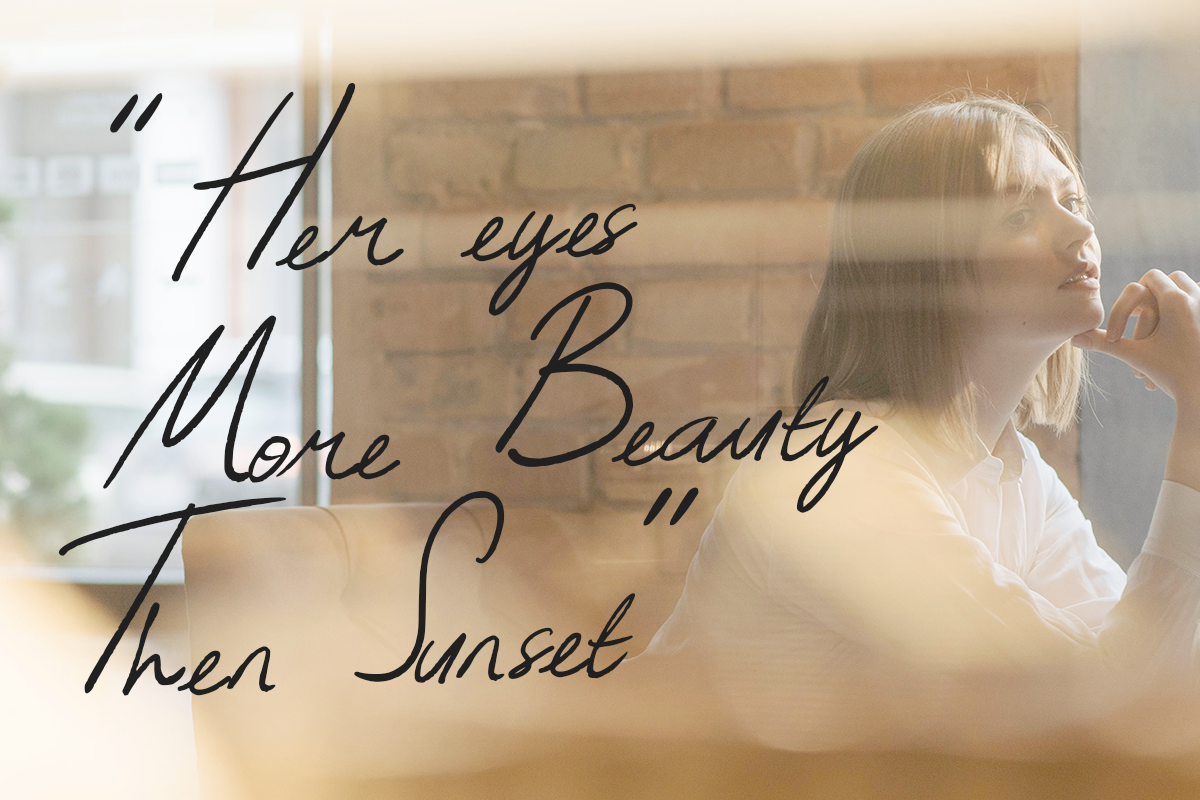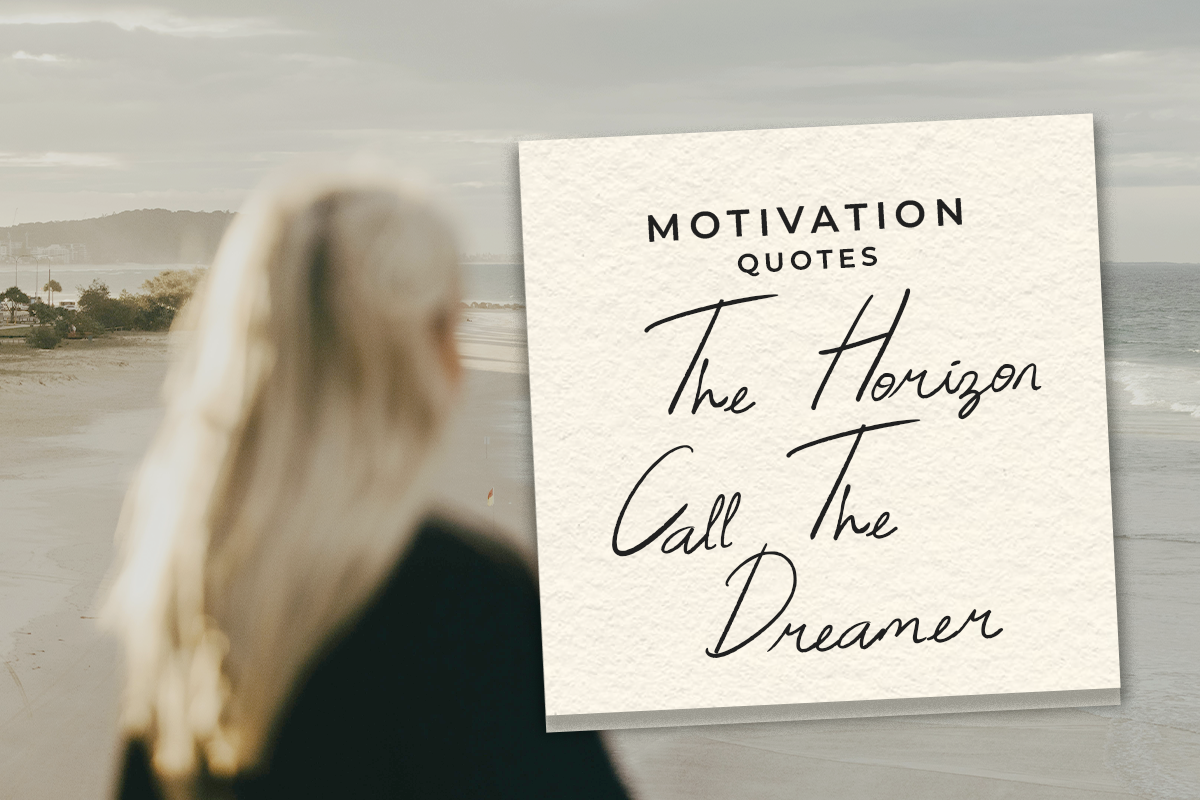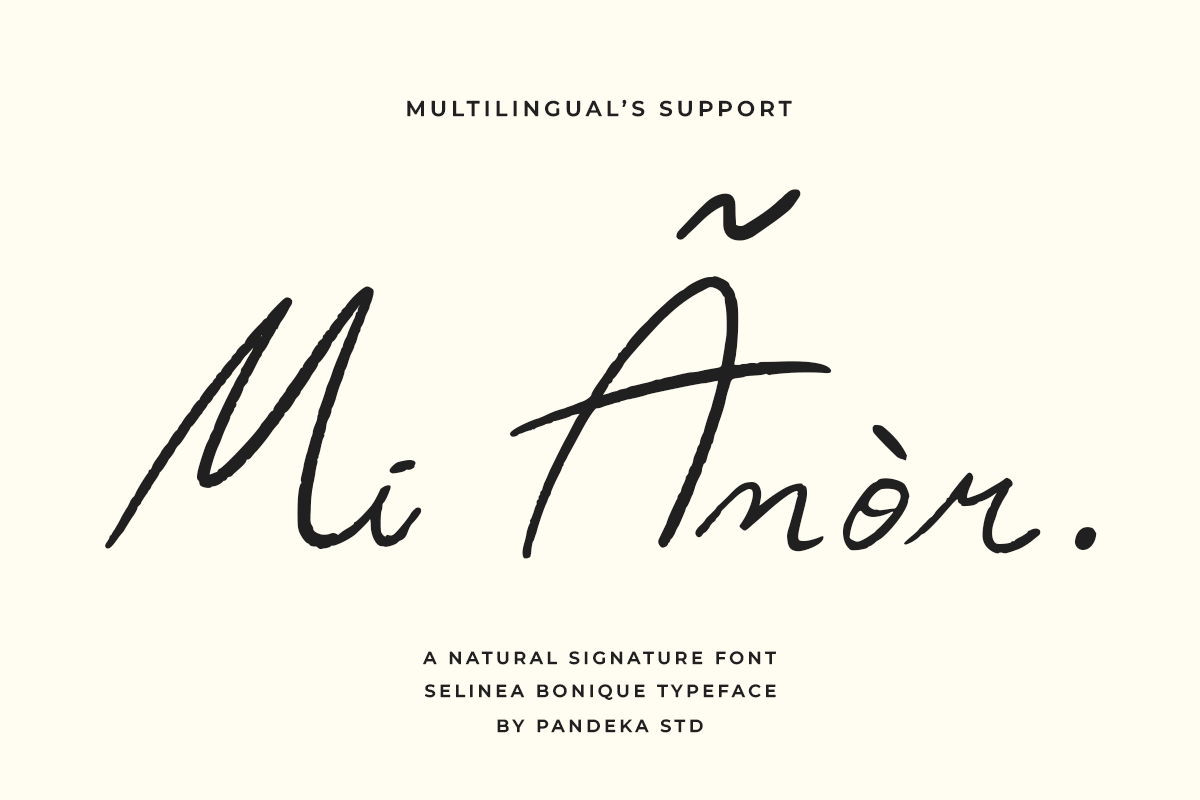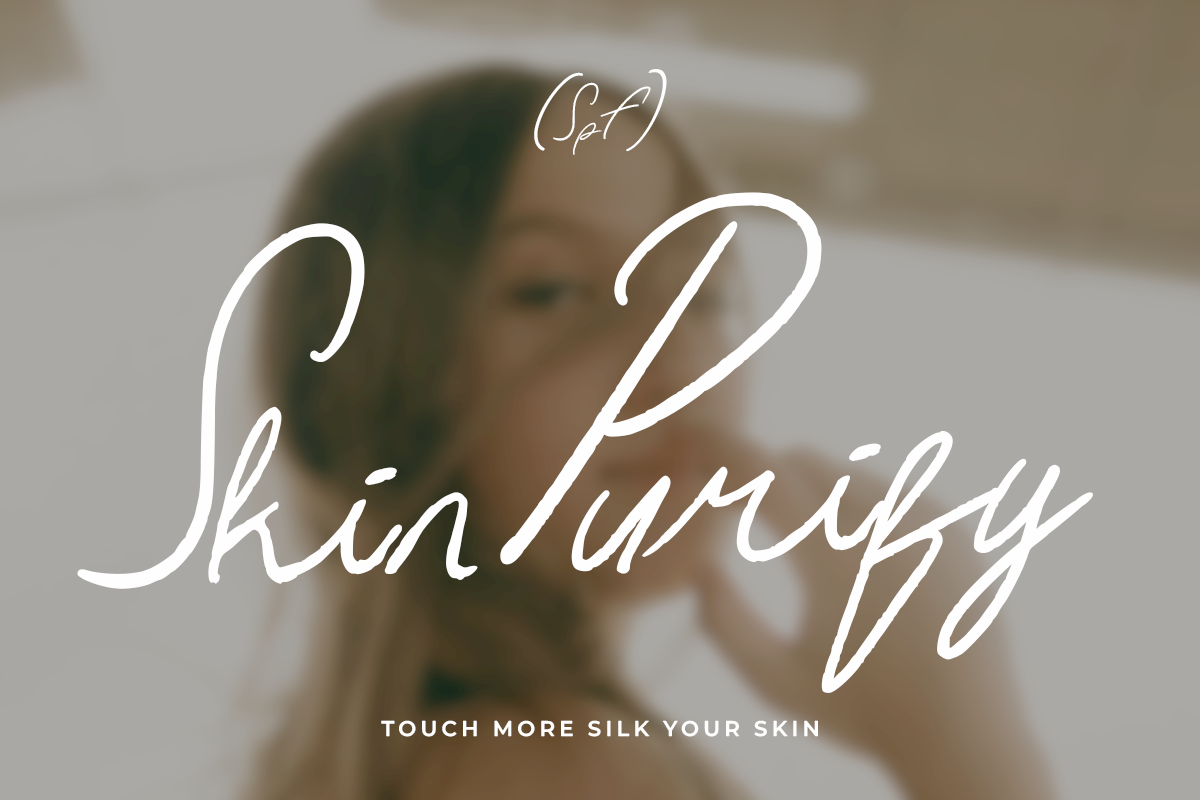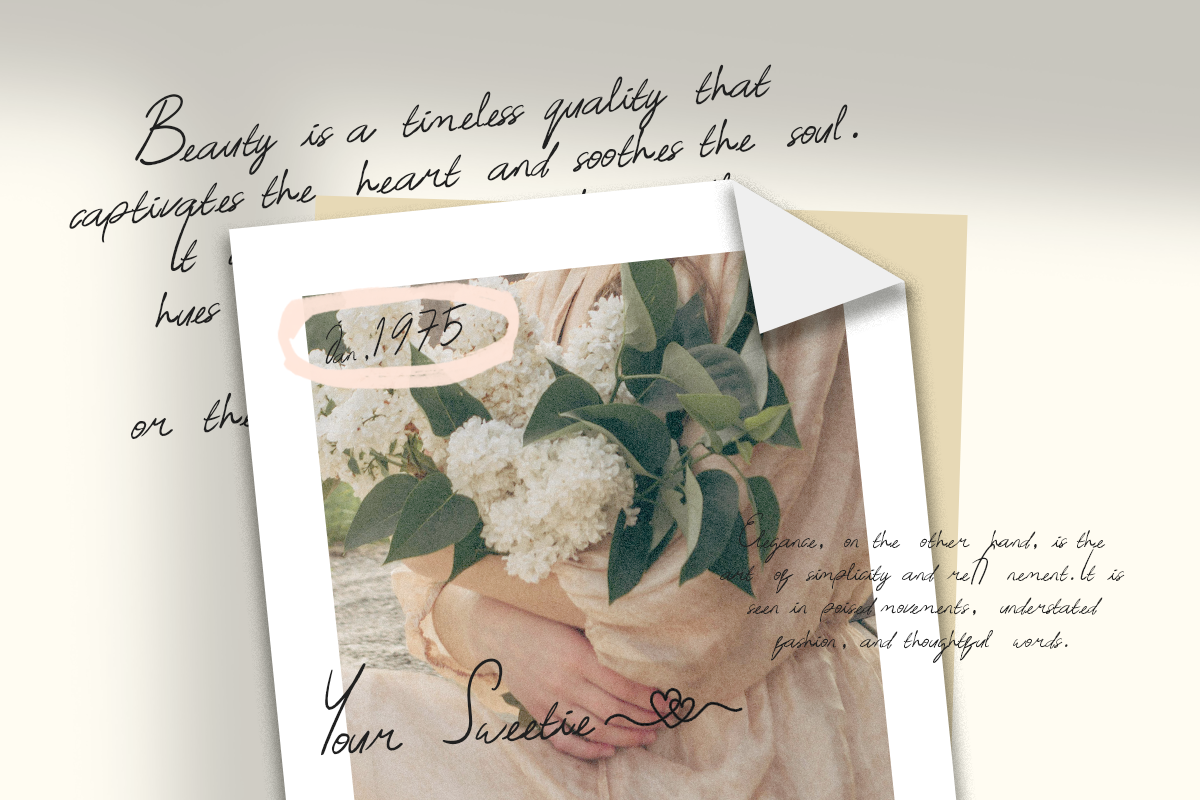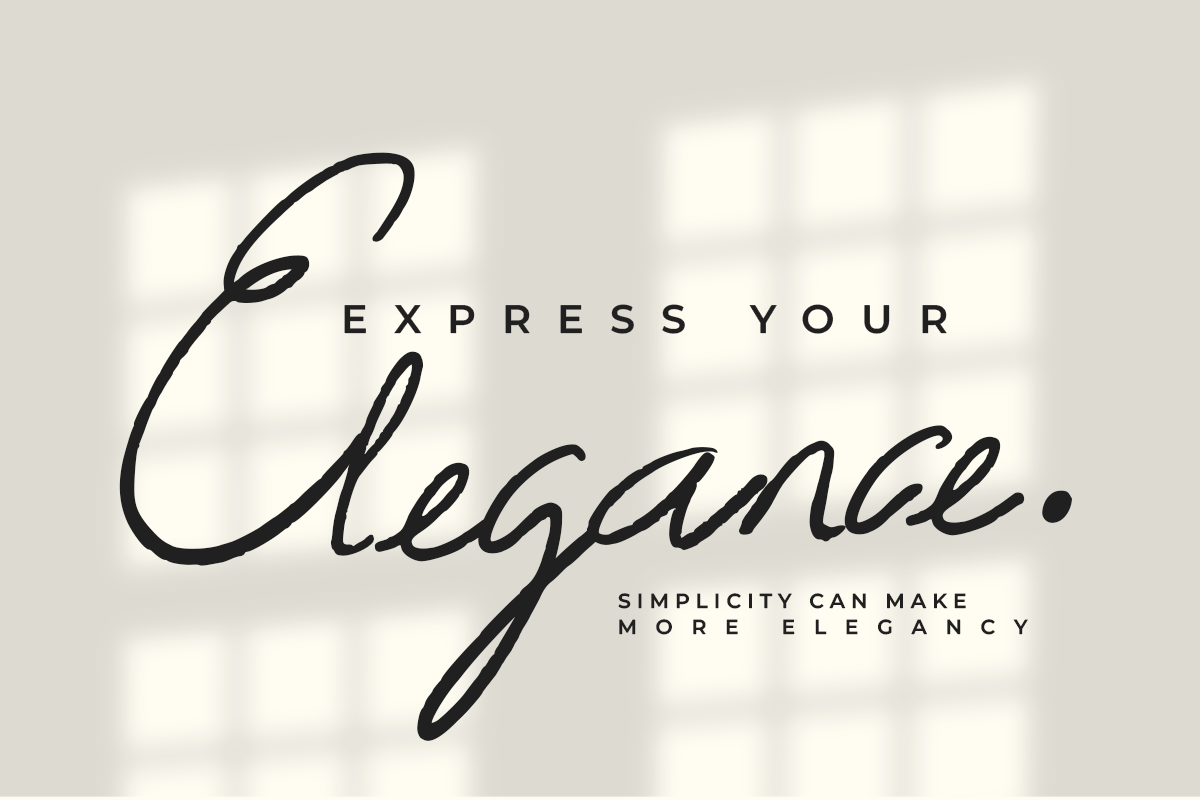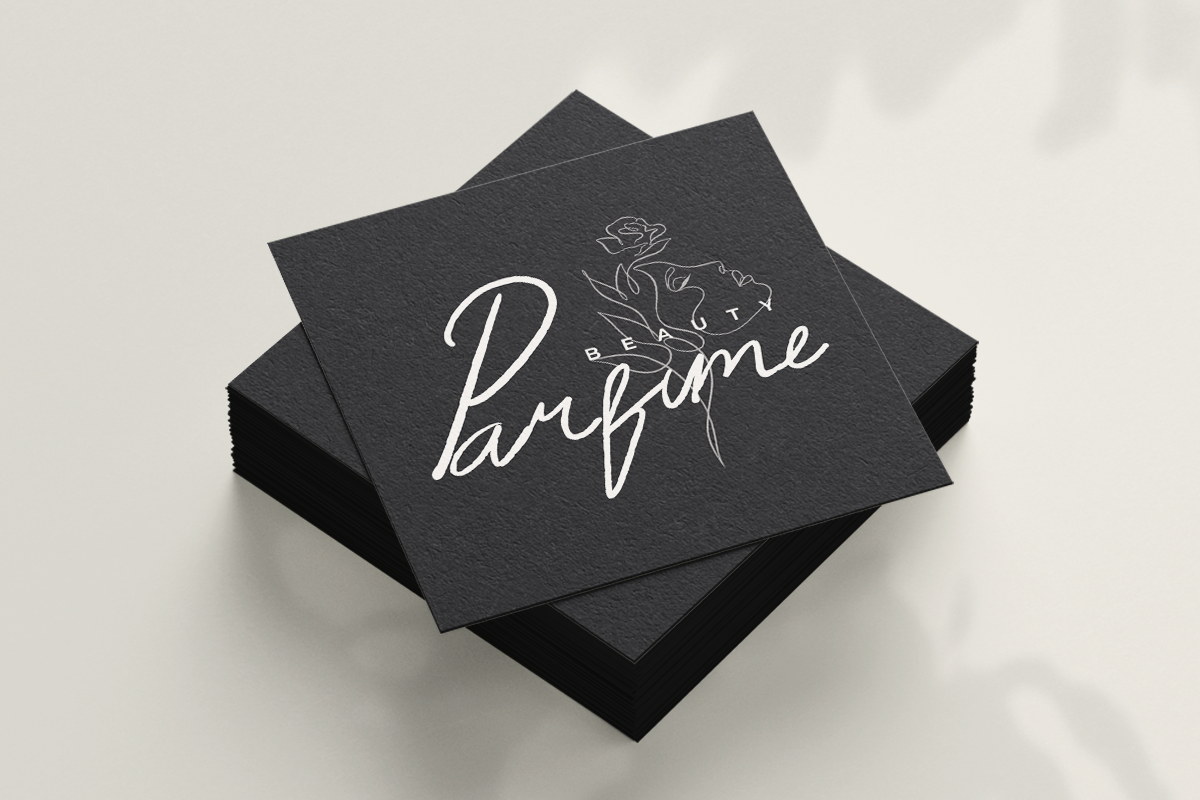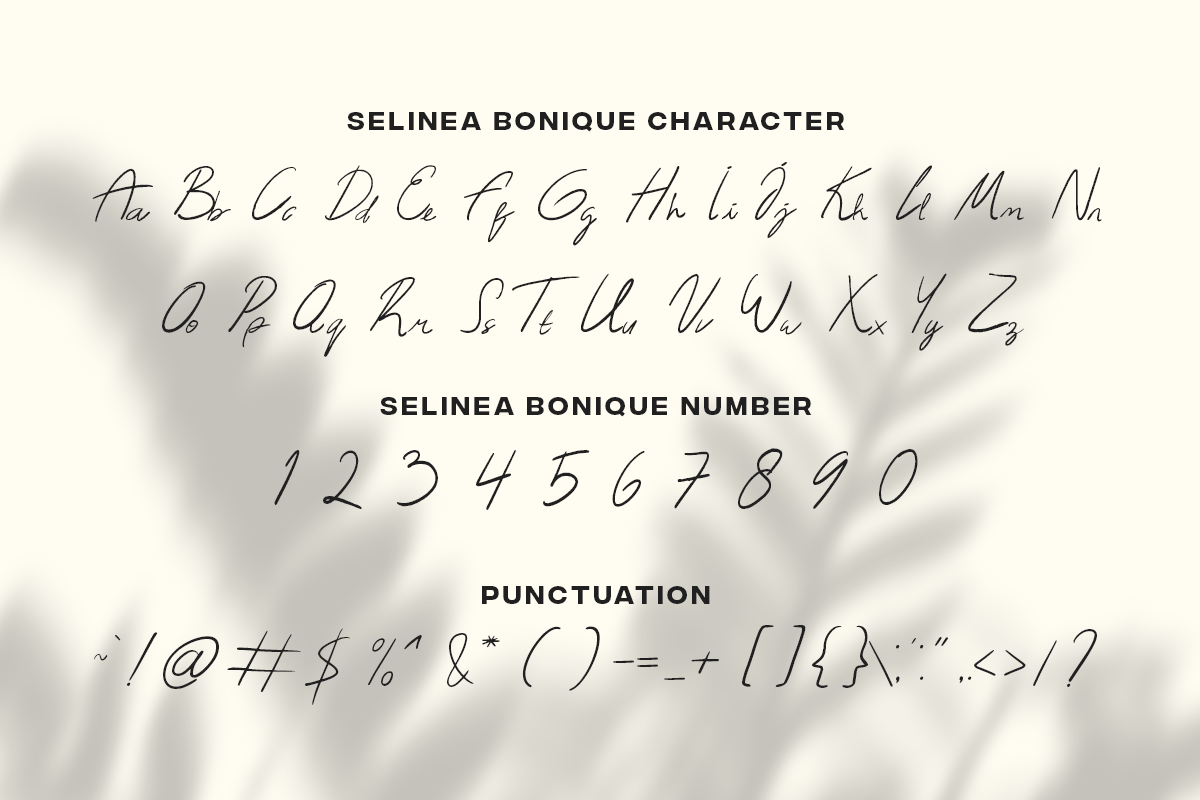
Selinea Bonique - Natural Signature
Meet Selinea Bonique!
Selinea Bonique is a natural signature script with a touch of elegant handwriting and stylish calligraphy. Designed with soft, inky strokes, it flows effortlessly for a modern typography feel.
Perfect for authentic branding, wedding invitations, timeless design, luxury packaging, social media graphics, and more. Pair it with a bold Sans-serif or classic Serif for a striking contrast.
Let Selinea Bonique bring warmth, elegance, and a handcrafted charm to your projects! ✨